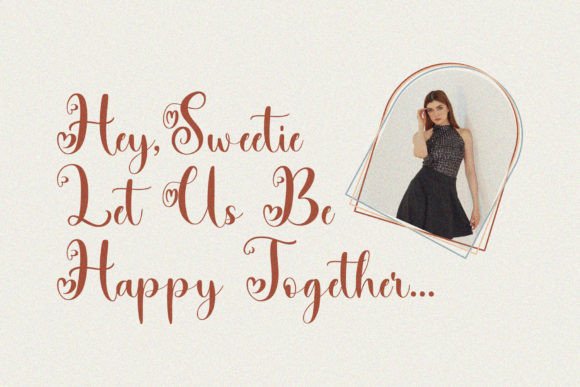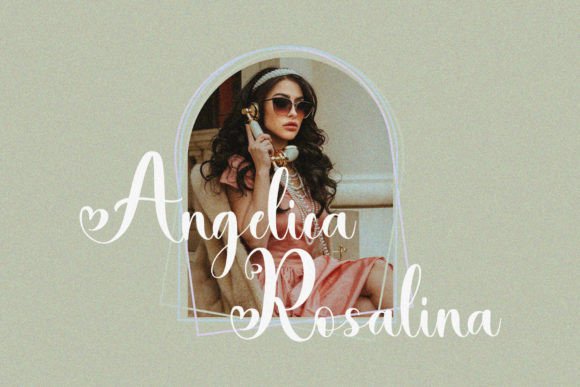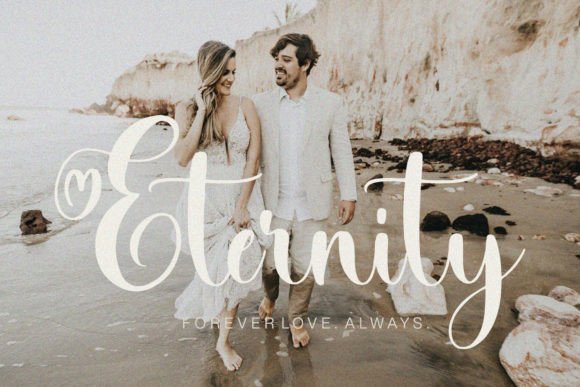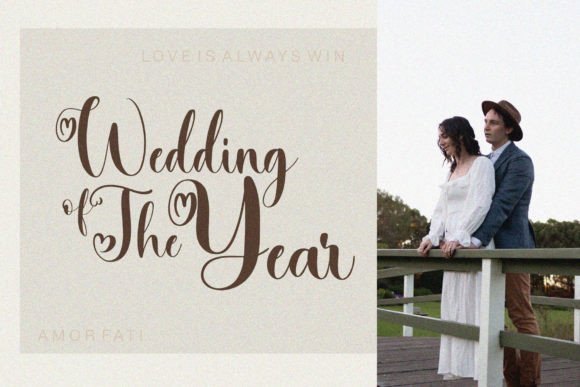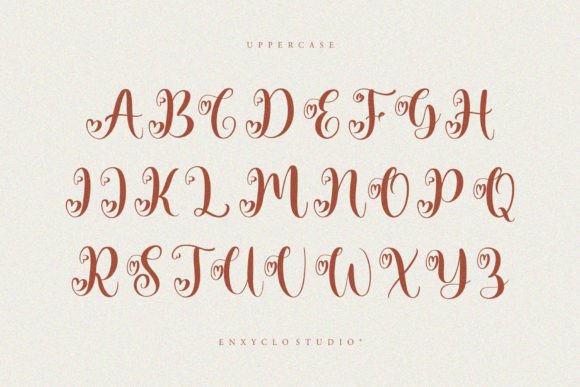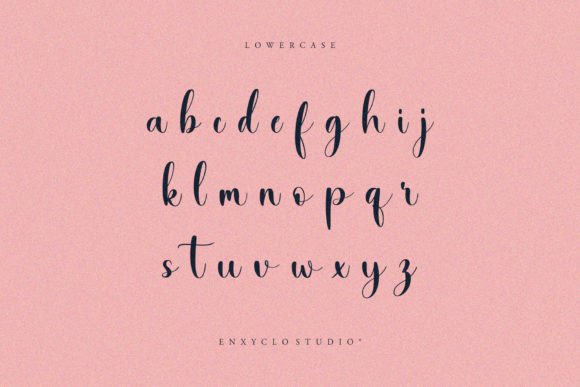
Introducing Giby Qeitarq Font: The Ultimate Wedding and Love-Inspired Typeface
In the world of typography, few fonts capture the essence of love and romance as beautifully as the Giby Qeitarq font. This stunning handwritten script font, designed by NCL, is a masterpiece that combines elegance with a playful touch, making it perfect for a wide range of creative projects. Whether you’re working on a wedding invitation, a romantic event, or simply looking to add a touch of sophistication to your design, Giby Qeitarq is sure to become your go-to typeface.
A Unique Handwritten Script Font with Heart Swashes
What sets Giby Qeitarq apart from other fonts is its unique blend of handwritten elegance and playful heart swashes. Each letter is carefully crafted to exude a sense of romance and whimsy, making it an ideal choice for designers looking to create something truly special. The font’s hand-drawn feel gives it a personal touch, while the heart swashes add a playful and romantic flair that’s sure to capture the hearts of your audience.
Masterfully Designed for Maximum Impact
Giby Qeitarq is more than just a font – it’s a design experience. Masterfully crafted to bring out the best in your creative ideas, this font has the potential to elevate any project to new heights. Its versatility means it can be used in a variety of contexts, from large point sizes for headlines and billboards to smaller point sizes for body text and captions. No matter how you choose to use it, Giby Qeitarq is sure to make a lasting impression.
Perfect for Wedding and Romantic Events
For designers working on wedding-related projects, Giby Qeitarq is a dream come true. Its romantic and whimsical feel makes it perfect for wedding invitations, save-the-date cards, and other stationery. But its uses don’t stop there – it’s also ideal for romantic event branding, packaging, and even web design. With Giby Qeitarq, you can create a cohesive and beautiful visual identity that will leave a lasting impression on your clients and their loved ones.
Beyond Weddings: Versatile Uses for Giby Qeitarq
While Giby Qeitarq is undoubtedly perfect for wedding and romantic event design, its versatility means it can be used in a wide range of contexts. Here are just a few ideas to get you started:
- Headlines and Billboards: Use Giby Qeitarq to create eye-catching headlines and billboards that demand attention.
- Magazines and Editorial Design: Add a touch of elegance to your magazine and editorial designs with Giby Qeitarq.
- Web Design: Use Giby Qeitarq to create beautiful website titles, headers, and even entire web pages.
- Poster and Flyer Design: Create stunning posters and flyers that showcase your message in style.
- Branding and Logos: Use Giby Qeitarq to create unique and memorable brand identities.
- T-Shirt Design: Create custom t-shirts and apparel with Giby Qeitarq.
Why Choose Giby Qeitarq?
With so many fonts available, why choose Giby Qeitarq? Here are just a few reasons why this font stands out from the rest:
- Unique and Memorable: Giby Qeitarq is a one-of-a-kind font that’s sure to leave a lasting impression.
- Versatile: Use Giby Qeitarq in a wide range of contexts, from print to digital.
- Elegant and Playful: This font combines elegance with a playful touch, making it perfect for a wide range of design projects.
- High-Quality: Giby Qeitarq is a high-quality font that’s designed to deliver exceptional results.
| Font Name | Giby Qeitarq Font |
| Author | Enxyclo |
In conclusion, Giby Qeitarq is a truly exceptional font that’s sure to become a favorite among designers and crafters. Its unique blend of handwritten elegance and playful heart swashes makes it perfect for wedding and romantic event design, as well as a wide range of other creative projects. With its versatility, high-quality design, and memorable feel, Giby Qeitarq is an essential addition to any designer’s font library.